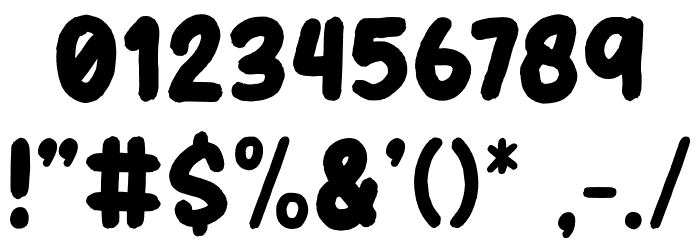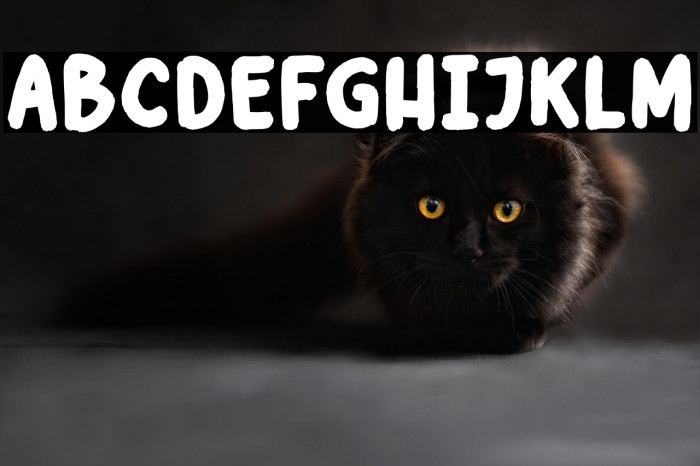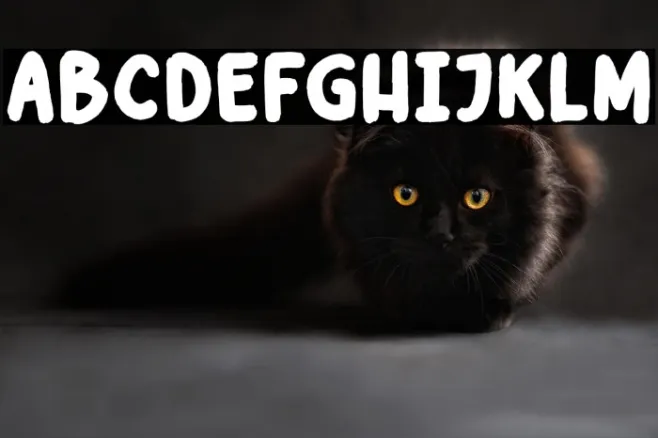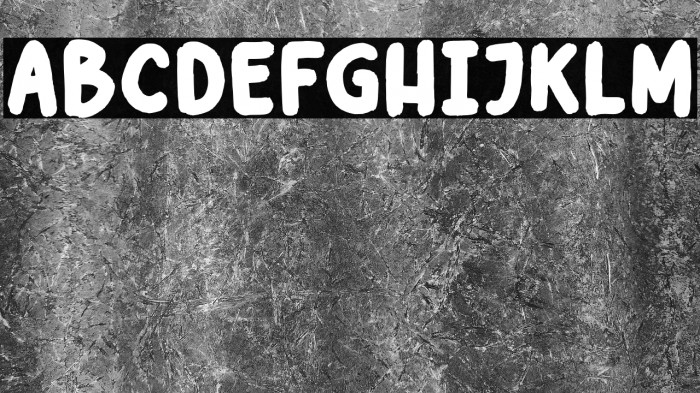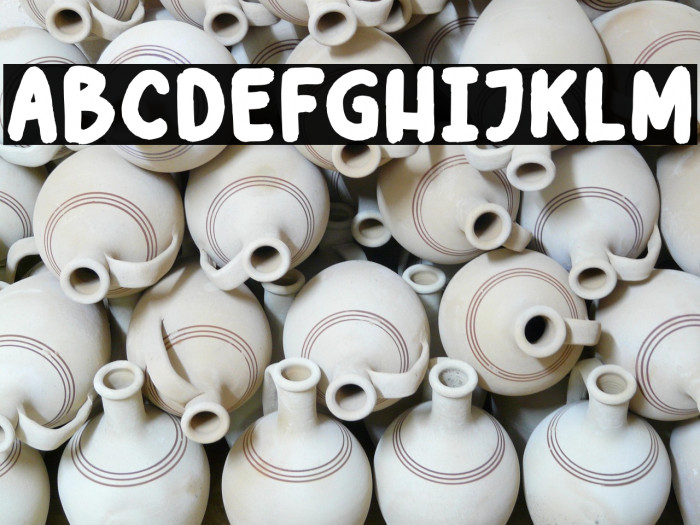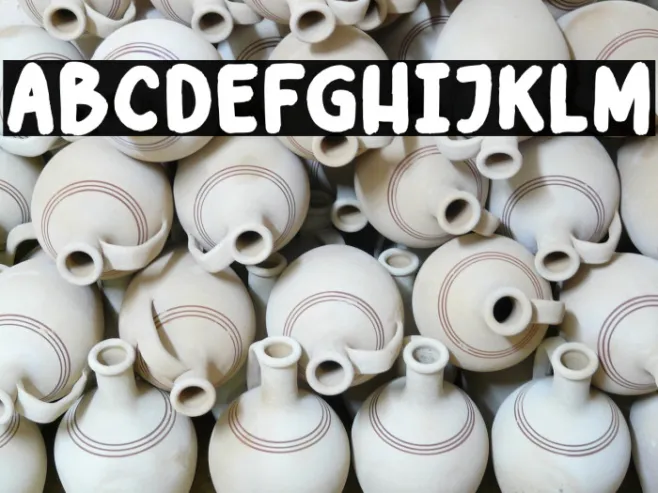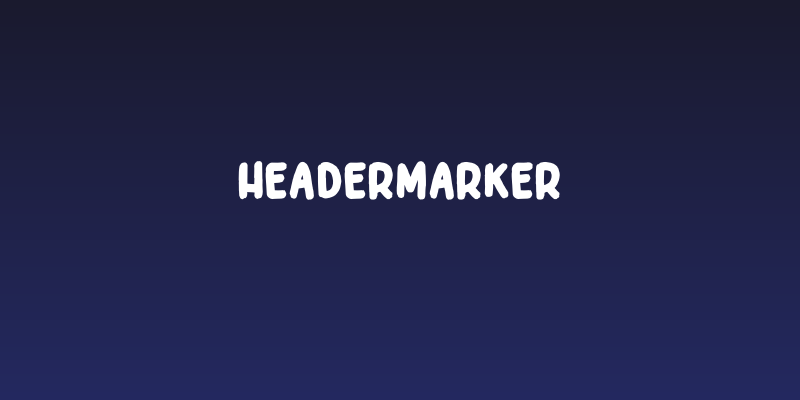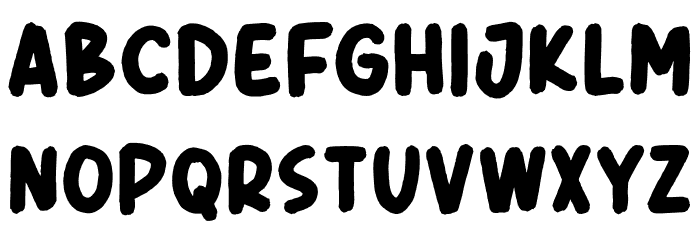
HeaderMarker Font
HeaderMarker Description
This font features a bold and playful style with rounded edges and a hand-drawn appearance. The characters are thick and have a uniform stroke width, giving them a strong presence. The uppercase and lowercase letters maintain a consistent style, with a slightly informal and friendly look. The numbers and special characters are designed to match the overall aesthetic, making them suitable for creative and casual applications. The font's boldness and rounded forms make it highly legible and eye-catching, ideal for designs that require a fun and approachable feel.
| Proposed Projects | Ideal for children's books, posters, logos, and playful branding projects. |